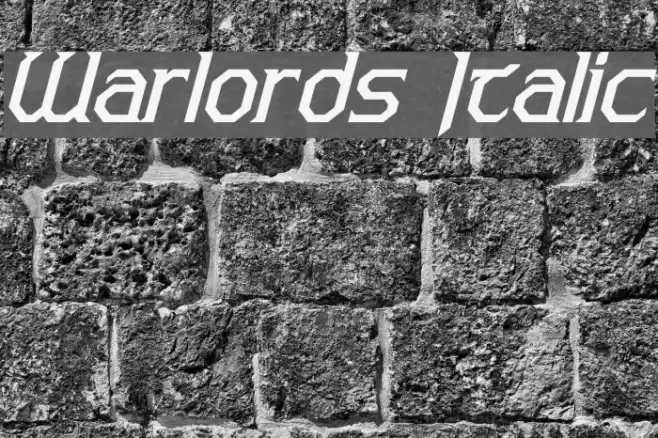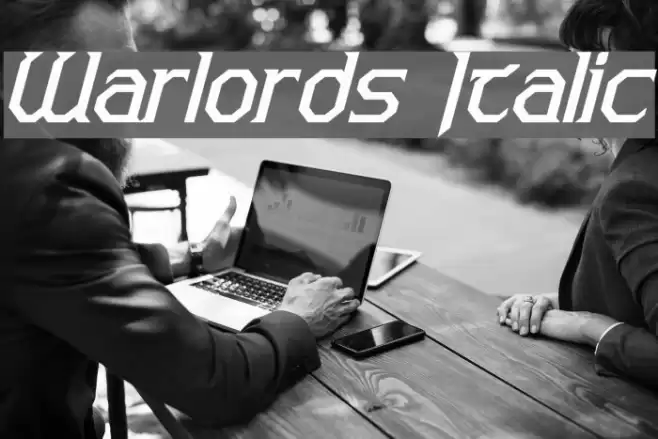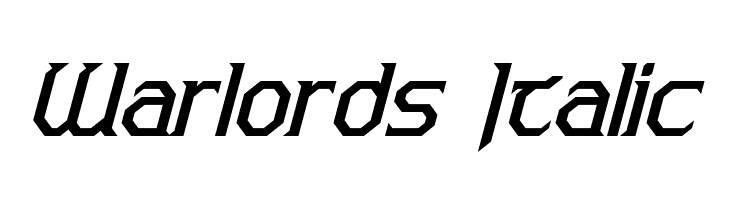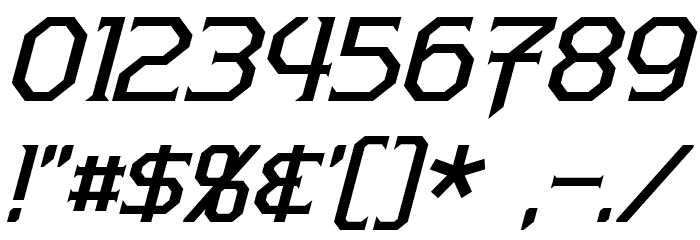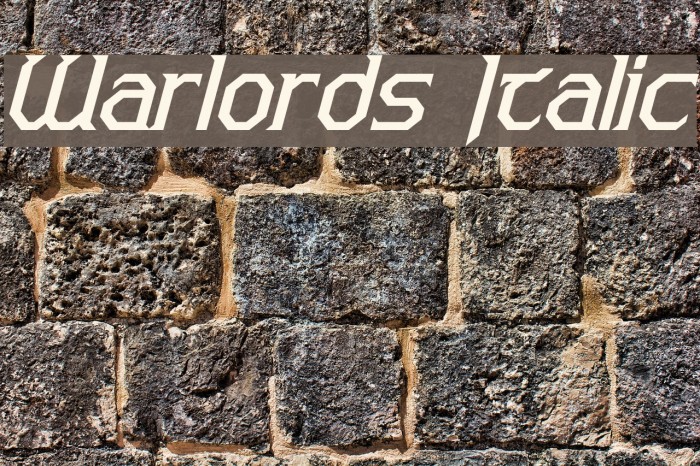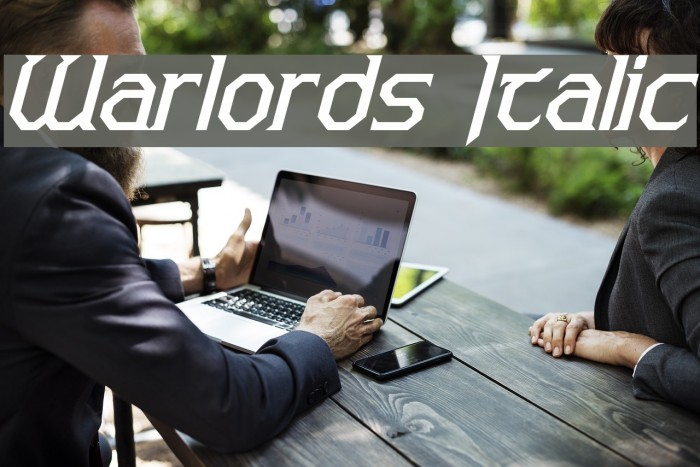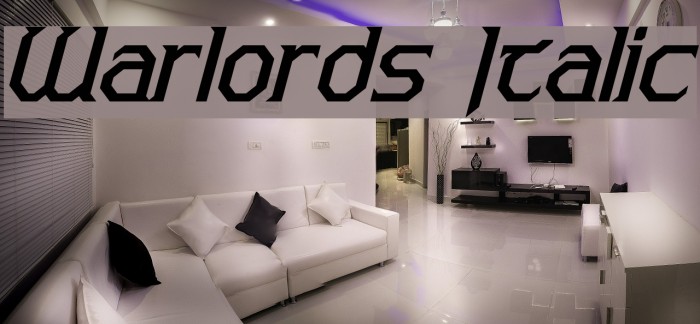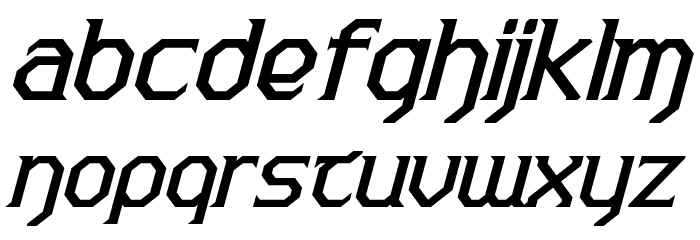
Warlords Italic Font
Warlords Italic Description
This font features a bold and angular design with a distinct italic slant, giving it a dynamic and aggressive appearance. The sharp, pointed edges and geometric shapes create a sense of movement and energy. Each character is uniquely crafted with a futuristic and edgy style, making it stand out. The uppercase and lowercase letters maintain a consistent style, while the numerals and special characters complement the overall aesthetic. This font is ideal for projects that require a bold statement and a modern, cutting-edge look.
A bold, angular italic font with a futuristic and dynamic style from Uncategorized fonts.
- Proposed Projects: Perfect for video game titles, movie posters, branding for tech companies, or any project needing a bold, modern edge.